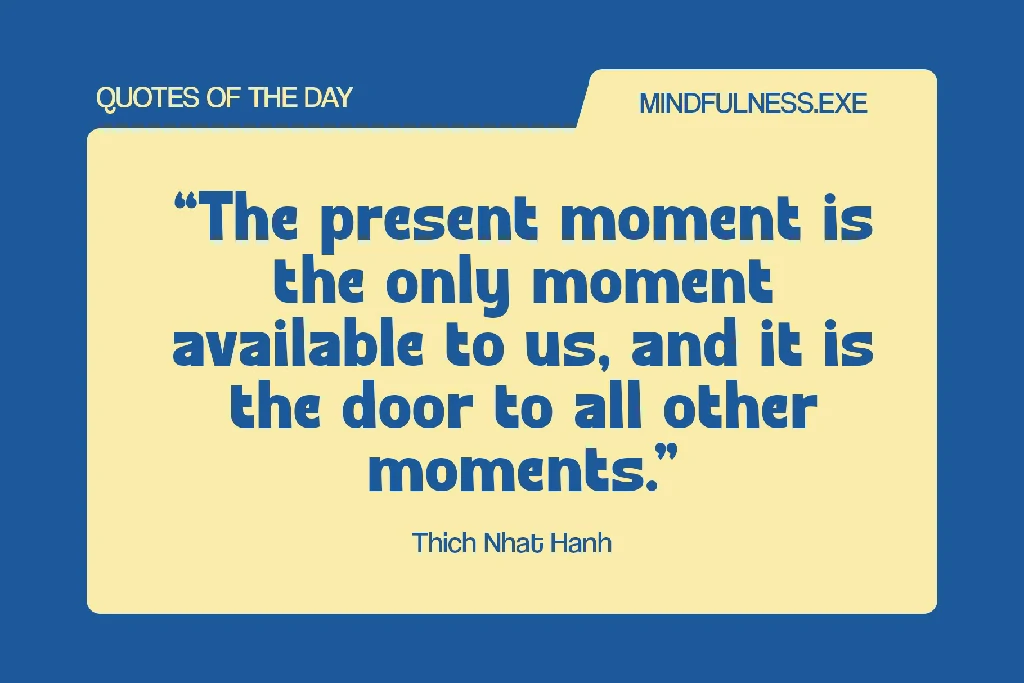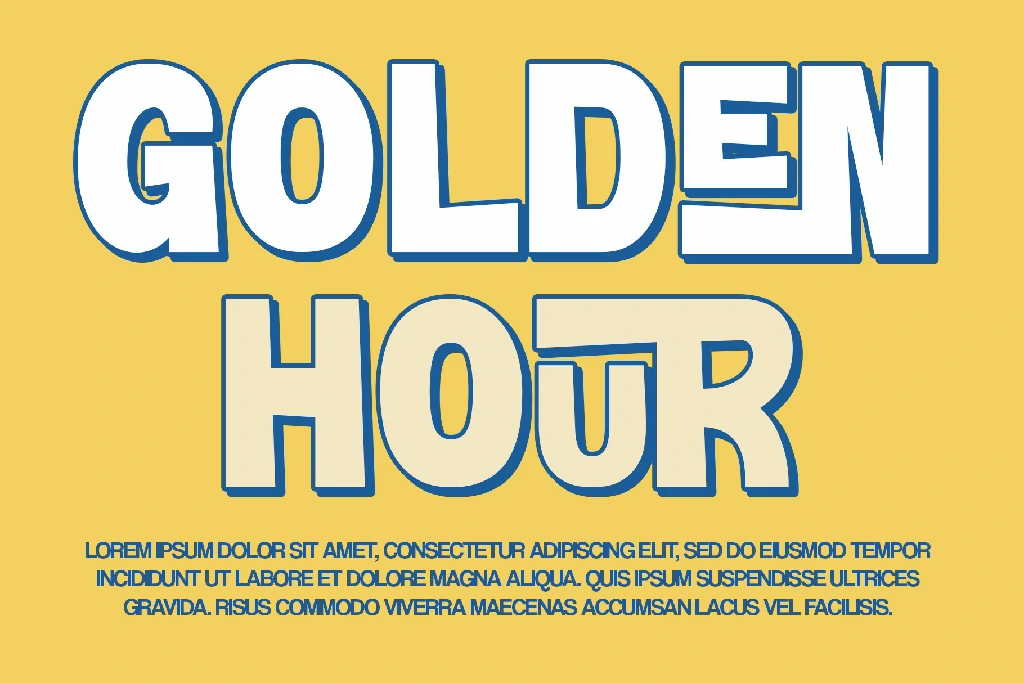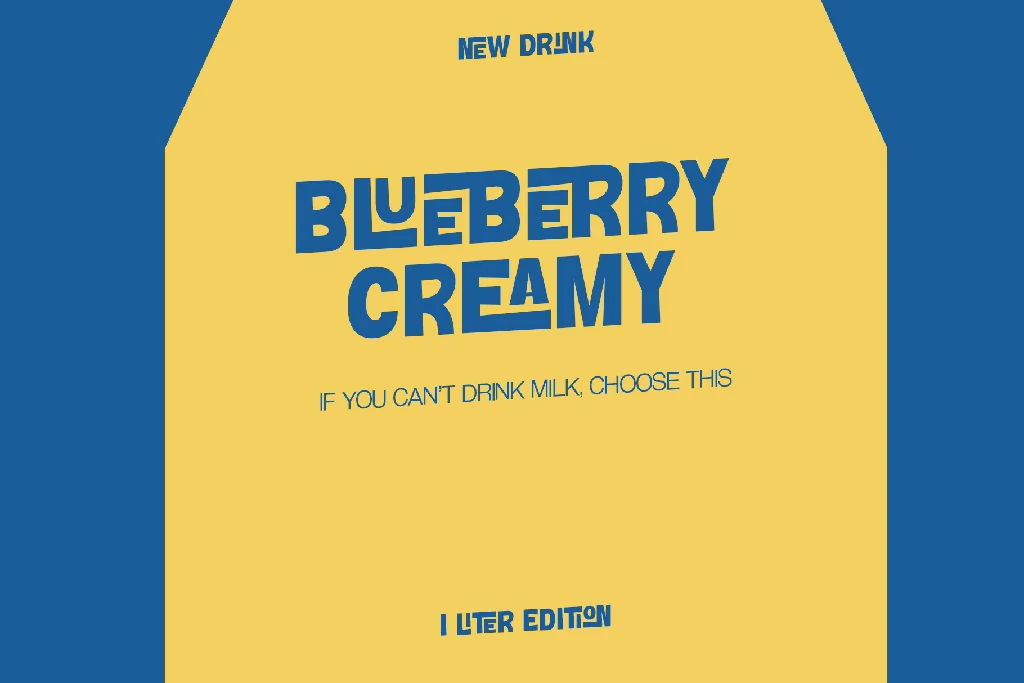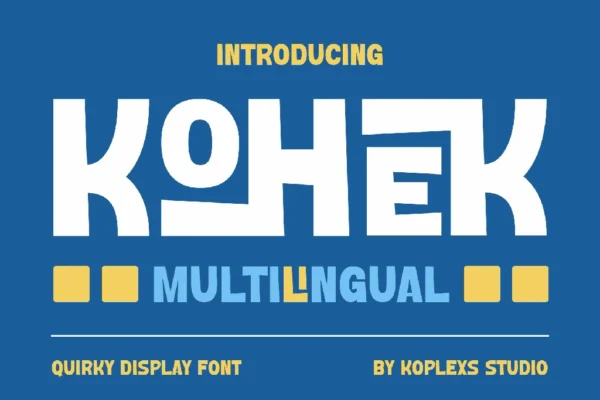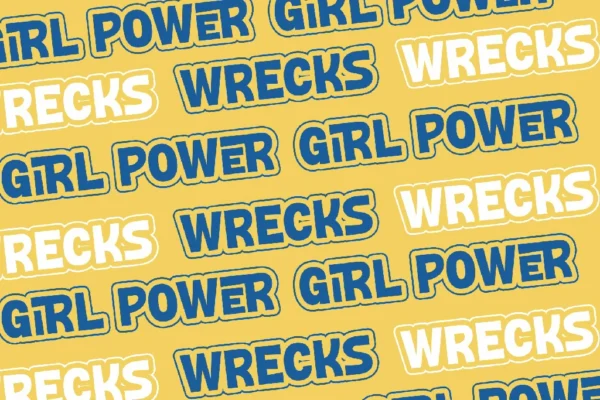
KOHEK – Quirky Display Font
KOHEK is a rebellious and playful typeface designed to disrupt the mundane. With its unconventional curves, exaggerated proportions, and cheeky personality, this font thrives in spaces where creativity demands a punch of character. Whether you’re shouting a slogan or whispering a whimsical detail, KOHEK adapts with versatility, blending raw energy with meticulous design.
Key Features
Unapologetic Quirkiness
- Eccentric Letterforms: Characters like the twisted “F,” slanted “LM,” and dynamic “EP” defy traditional typography rules, adding instant visual intrigue.
- Playful Ligatures: Unique combinations such as “Nō,” “Yi,” and “ER” (inspired by the provided glyphs) let you craft custom connections for standout headlines.
- Bold Repetition: Phrases like “WRECKS,” “GRL POWER,” and “RLPOWER” (from the sample files) gain extra impact with KOHEK’s jagged edges and assertive weight.
Multilingual Mastery
- Supports diacritics, special characters, and non-Latin scripts, making it ideal for global campaigns, multicultural branding, or multilingual posters.
Dynamic Versatility
- Size Flexibility: Retains clarity and personality even at smaller sizes, though it truly shines in large-scale applications like billboards, posters, or social media banners.
- Edgy Yet Readable: The balance between chaos and structure ensures your message stays legible while radiating rebellious charm.
Nostalgic-Meets-Futuristic Vibe
- Inspired by retro punk aesthetics and futuristic tech, KOHEK works for grungy concert flyers, sci-fi gaming logos, or avant-garde editorial layouts.
Design Philosophy
KOHEK was born from the idea that typography should feel as much as it communicates. Its uneven strokes and asymmetrical details mimic hand-drawn imperfections, while the sharp angles and condensed spacing reflect modern minimalism. This duality makes it a font for designers who dare to stand out—perfect for projects that reject “safe” choices.
Suggested Uses
- Posters & Social Media Graphics: Amplify slogans like “GRL POWER” or “WRECKS” with KOHEK’s jagged, in-your-face style.
- Branding & Logos: Inject personality into streetwear labels, indie coffee shops, or tech startups aiming for a bold identity.
- Merchandise: Print it on stickers, T-shirts, or skateboard decks for a gritty, youth-centric vibe.
- Editorial Headers: Pair with minimalist body text to create striking magazine spreads or zine covers.
- Event Promotions: Ideal for music festivals, art exhibitions, or activism campaigns needing a voice that’s loud and unignorable.
Let KOHEK Be Your Design Rebellion
Whether you’re championing a movement, promoting a festival, or crafting art that refuses to blend in, KOHEK is your typographic accomplice. It’s not just a font—it’s a statement.